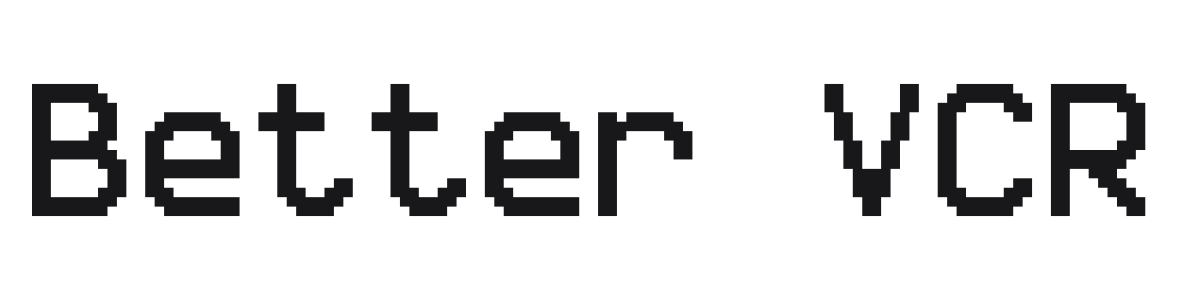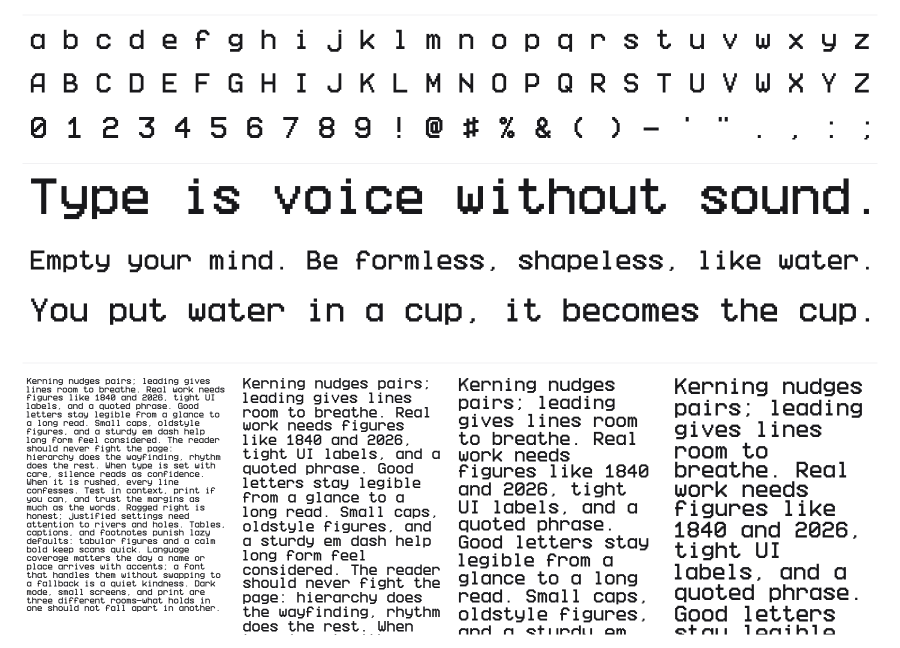
Better VCR
Better VCR is a bitmap pixel font inspired by the chunky on-screen displays of VHS players and early home electronics. Built on a square grid with softly rounded corners, it captures the warm fuzziness of CRT-era digital text without feeling gimmicky. It also includes Kanji sourced from Yasuaki Ohno's PAWFONT, extending its reach beyond the Latin alphabet.